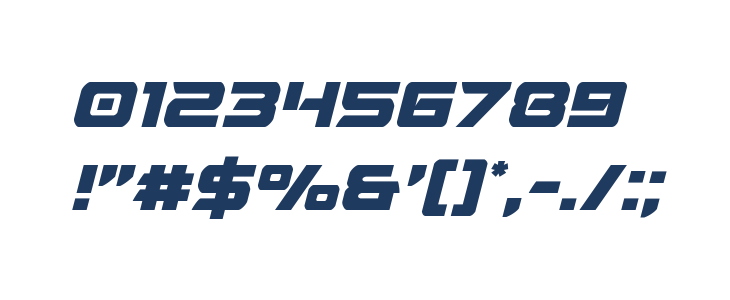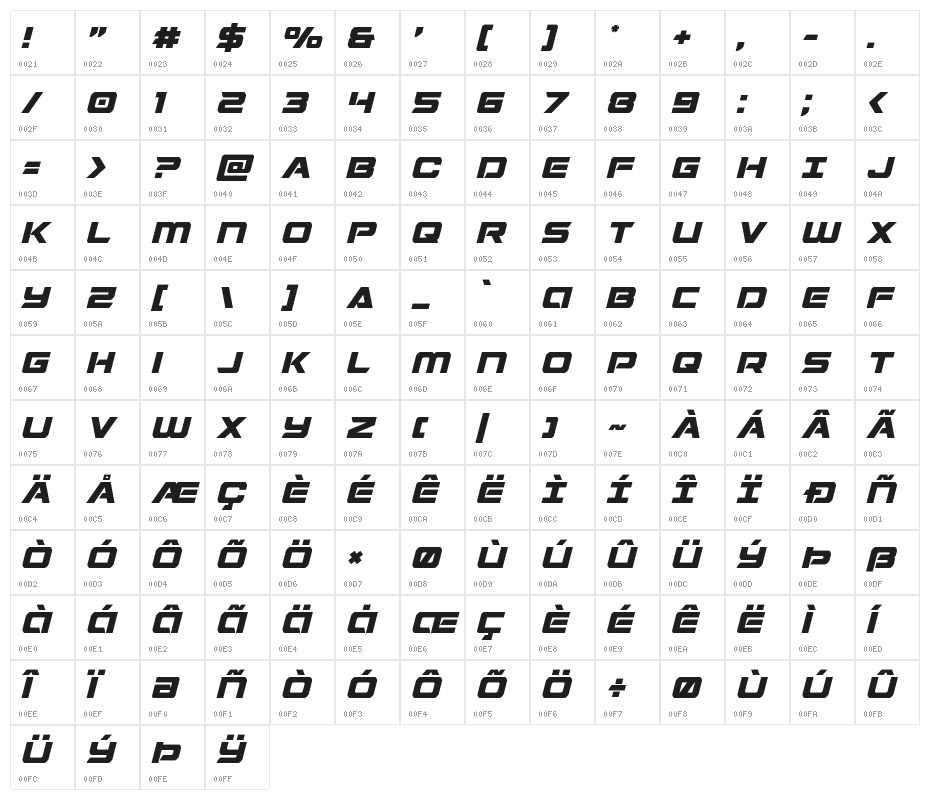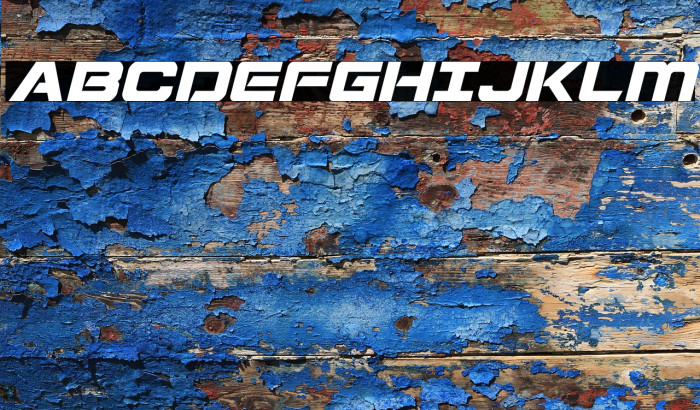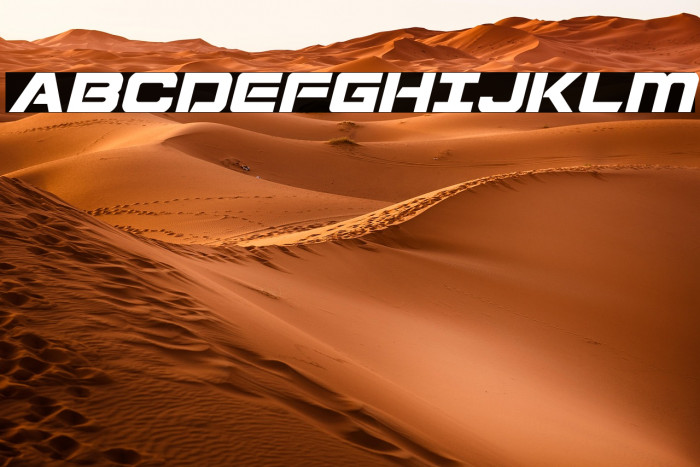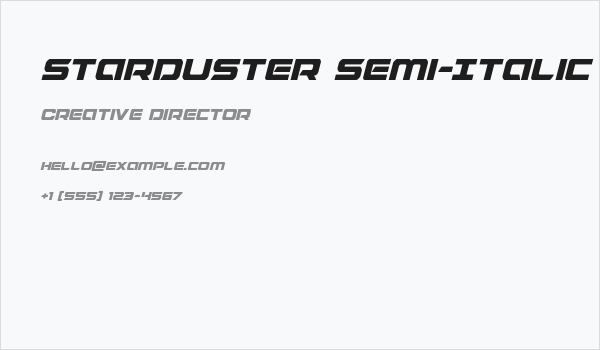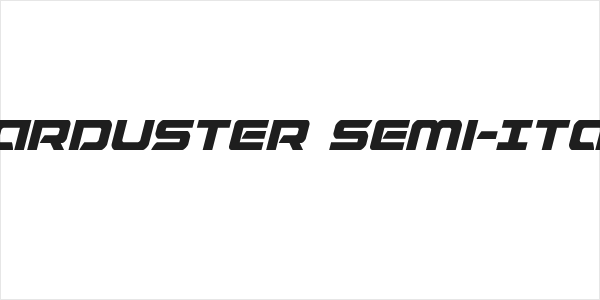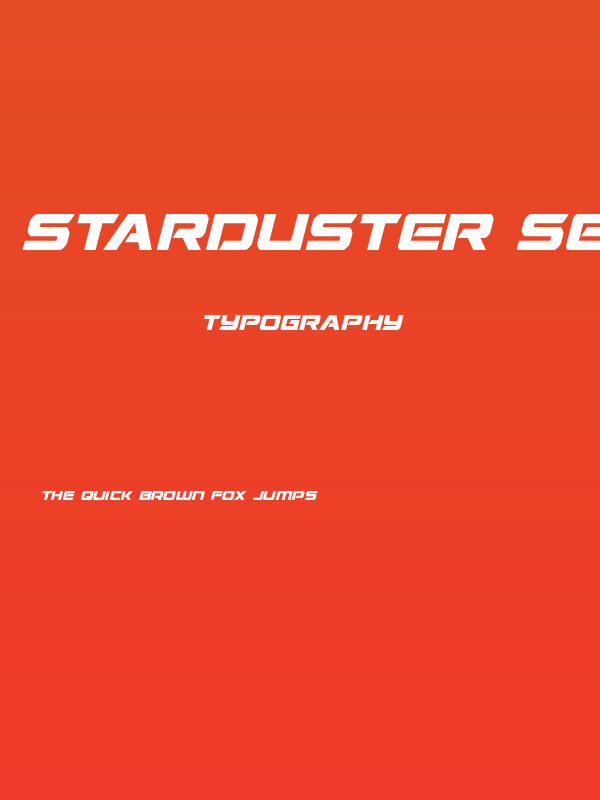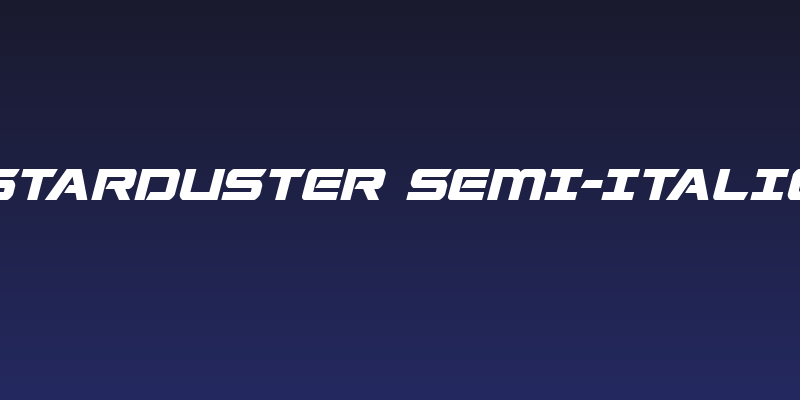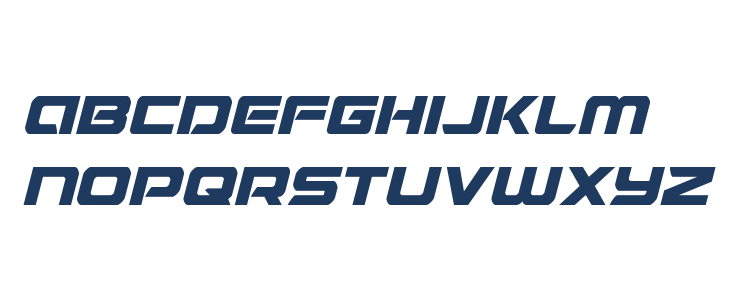
Starduster Semi-Italic Font
Starduster Semi-Italic Description
This font features a bold and dynamic design with a semi-italic slant, giving it a sense of motion and energy. The characters are wide and angular, with a futuristic and sporty appearance. The uppercase letters are particularly striking, with sharp edges and a strong presence. The numbers and special characters maintain the same bold style, ensuring consistency across all elements. This font is ideal for projects that require a modern and impactful look.
| Proposed Projects | Ideal for sports branding, futuristic designs, video game titles, and dynamic posters. |